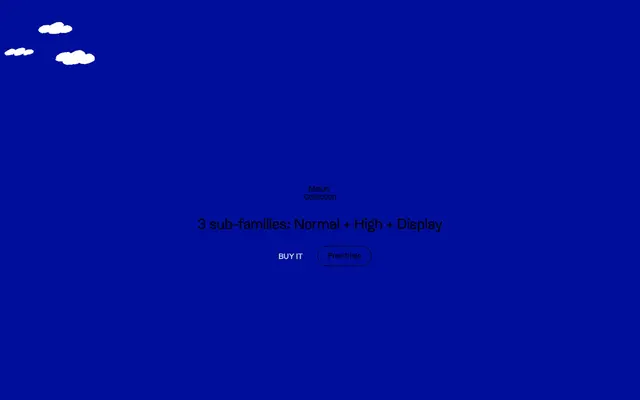
Melun
Lift Type · Romain Oudin · 2024
A geometric sans with retro leanings from Lift Type, split across three subfamilies covering text, semi-display and full display use.
Designed by Romain Oudin and released in 2024, Melun comes in three sub-families: Normal in five weights with italics for text setting, High with an elevated x-height suited to semi-display use, and Display offering six weights with more radical letterforms. The family draws on retro geometric references while remaining functional across a range of sizes, and ships with 638 glyphs covering an extensive range of Latin-based languages. Stylistic sets, circled numbers, arrows and pictograms give it added utility for graphic and editorial work.
Described explicitly as a geometric sans-serif with retro influences; the three subfamilies range from text-weight to semi-display and a more radical display cut, all sharing geometric construction throughout.